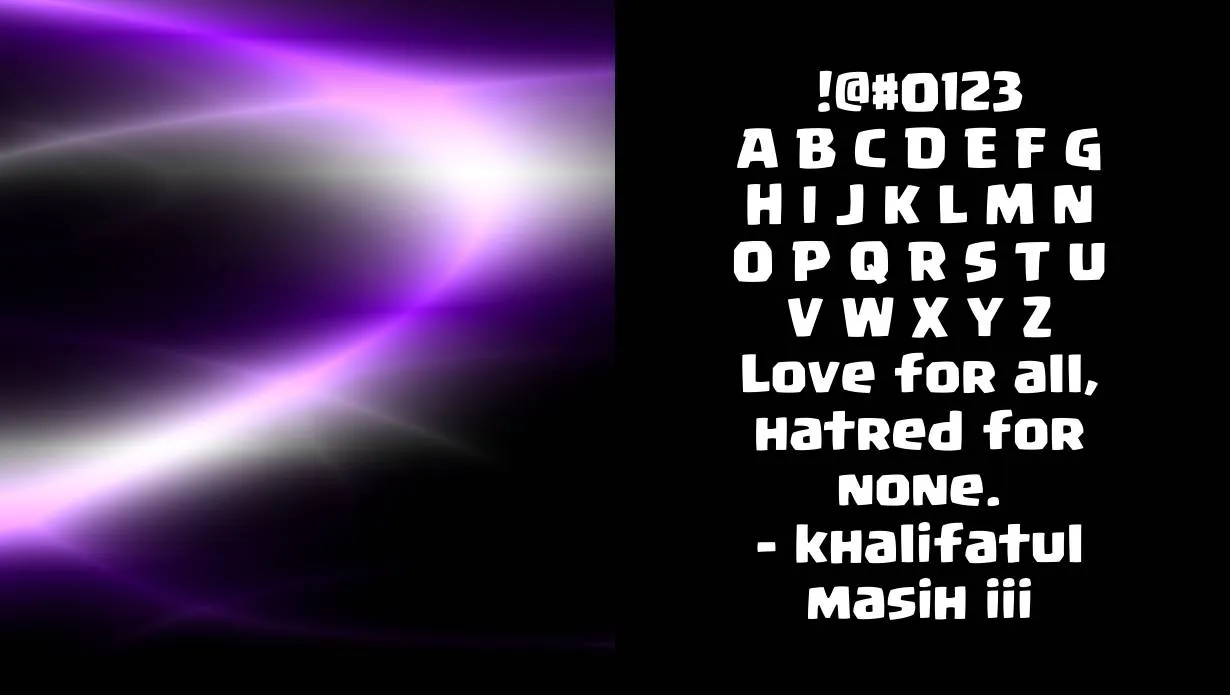
Today we are consulting on the very popular typeface that s known by the name Clash Royale Font. John Roshell is the main developer of this cute font family. This classy typeface belongs to the display typeface. In the year 2009, this font family was released to the general public. It is well specified by the CSS.
Clash Royale Font Family
It is a very famous mobile game and this font is used for the logos of this game. This display font has available in two unique styles including regular and italic. You can use its similar rye font that has the same features.